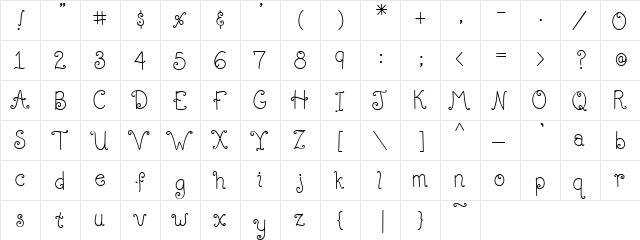
PC Noodle Baby Regular
Design Context for PC Noodle Baby Typeface
PC Noodle Baby is a composed and adaptable typeface that performs quietly and consistently across a wide range of design contexts.